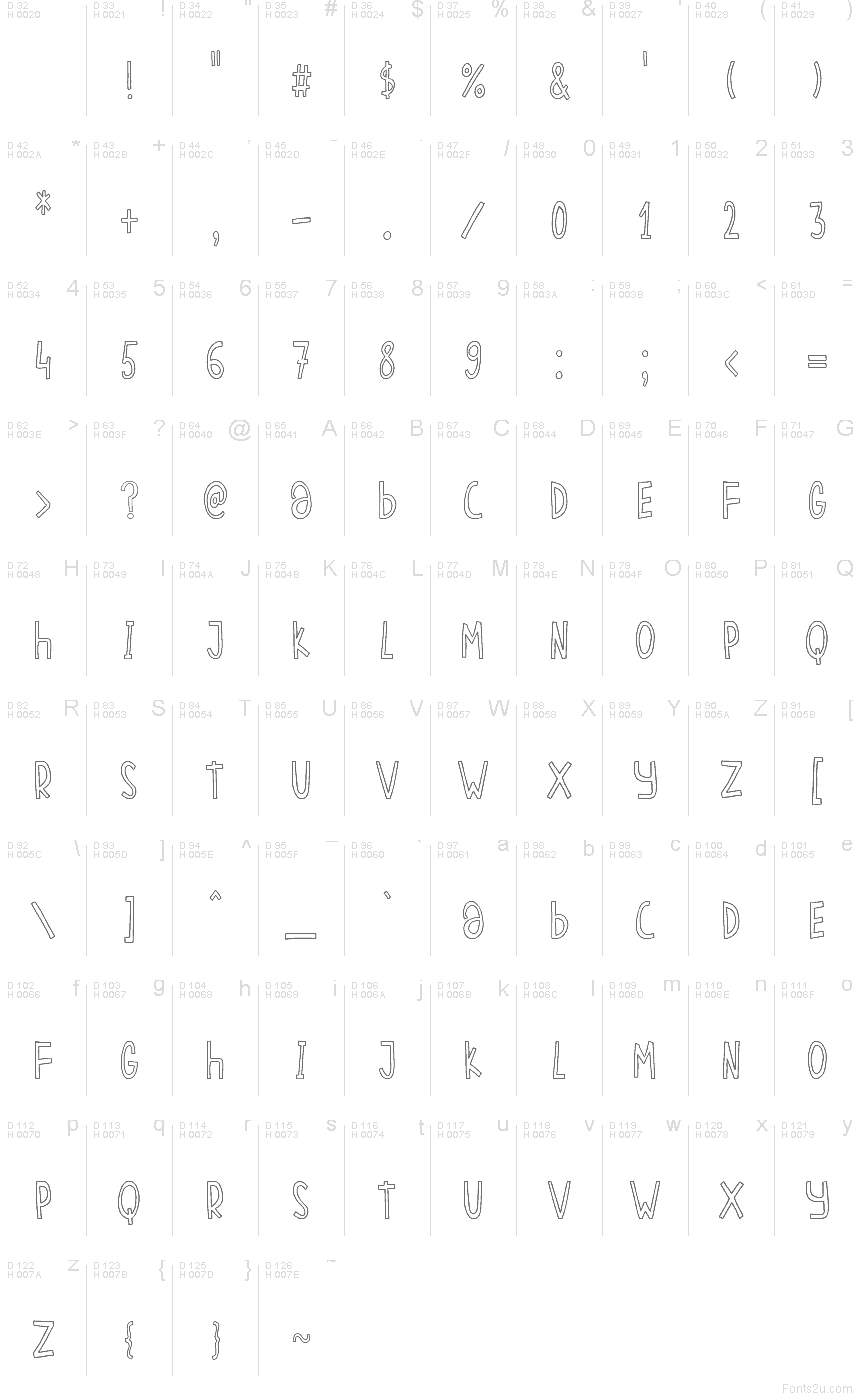
Kids World Channel Outline
Kids World Channel Outline font by Woodcutter is a free outlined cartoon display typeface that looks like it was doodled straight onto the page. Tall, squiggly letters with hollow centers feel hand-drawn and playful, like a TV show logo sketched in a notebook. The thin, irregular strokes give it a light, bubbly energy that’s easy to color in, layer, or fill with textures and gradients.
Using Kids World Channel Outline, you can instantly brand kids’ YouTube channels, educational videos, birthday invites, game UIs, classroom posters, and playful logos with a fun, scribbly personality. This free font really shines at larger sizes where the outline detail stays crisp, and it pairs nicely with a simple rounded sans for body text to keep everything readable while the headline brings the whimsy.